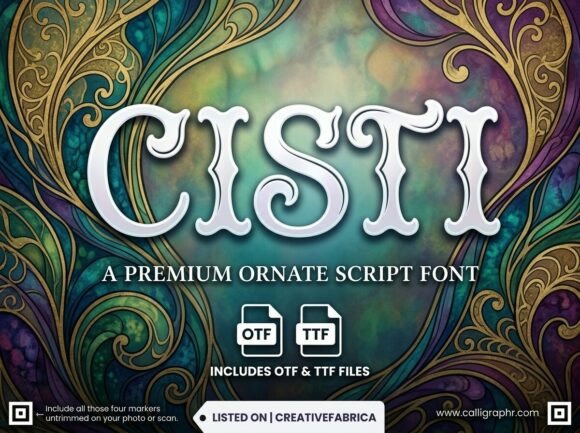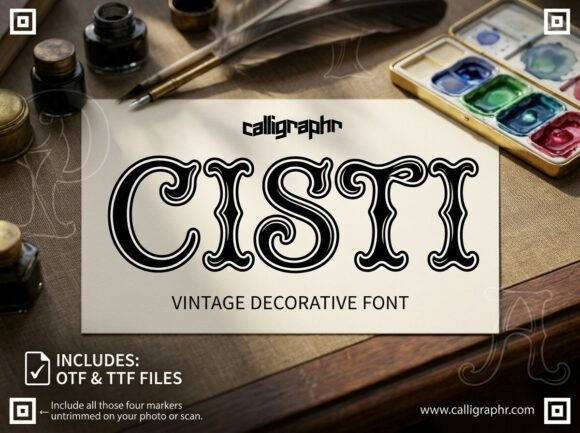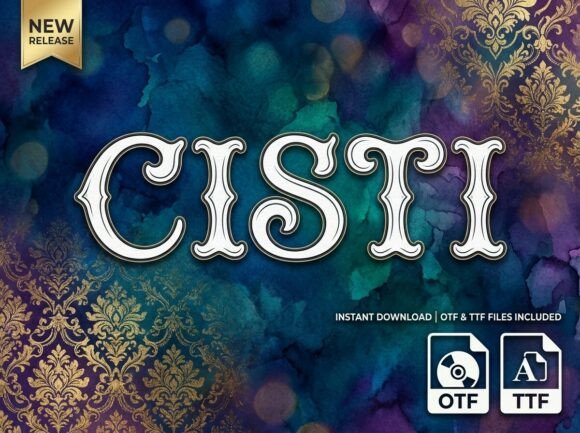
The Cisti Font: A Stunning Decorative Display Font to Elevate Your Designs
Have you ever been working on a project, pouring your heart and soul into it, only to get stuck on one thing: finding the perfect font? I recall a particularly frustrating experience where I was tasked with creating a bold, eye-catching logo for a client, but every font I tried seemed to fall flat. That’s when I discovered the Cisti Font, a game-changing decorative display font that instantly elevated my design.
As a designer, craftsperson, or creative hobbyist, you’re likely no stranger to the importance of typography. The right font can make all the difference in capturing the essence of your brand or message. In this article, we’ll dive into the world of Cisti Font, exploring its unique features, uses, and benefits.
- ✨ Unique artistic elements that add a touch of sophistication to any design
- ✅ Strong visual personality that’s sure to turn heads
- ✅ Versatile enough for bold headlines, artistic logos, and creative packaging
- ✅ Maintains a professional and polished finish
⚠️ One thing to note is that Cisti Font is an ALL-CAPS (Uppercase Only) display typeface. This means it doesn’t include lowercase letters, making it specifically designed for high-impact headlines, logos, and decorative initials where every letter is a work of art.
⚠️ Additionally, some users might find the font’s uniqueness a bit limiting for certain design applications. However, I believe this is a minor trade-off for the font’s distinctive character.
While the true origins of Cisti Font remain a mystery, it’s clear that the designer was inspired by the world of art and typography. The font’s unique blend of artistic elements and strong visual personality suggests a passion for creative expression and a desire to push the boundaries of traditional typography.
Q: Is Cisti Font suitable for body text?
A: Due to its decorative nature, Cisti Font is best suited for headlines, titles, and short-form text. For body text, consider a more traditional font.